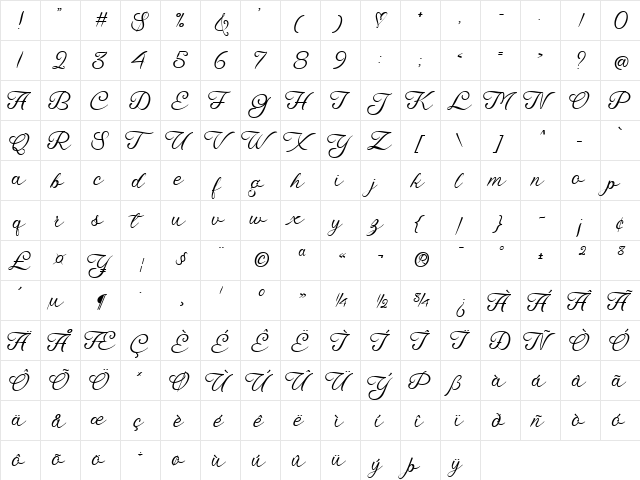
Eleganta Regular
Design Context for Eleganta Typeface
Eleganta is a composed and adaptable typeface that performs quietly and consistently across a wide range of design contexts.
Pro Tip: Pair Eleganta with a font of contrasting weight or personality to build a more expressive typographic hierarchy.